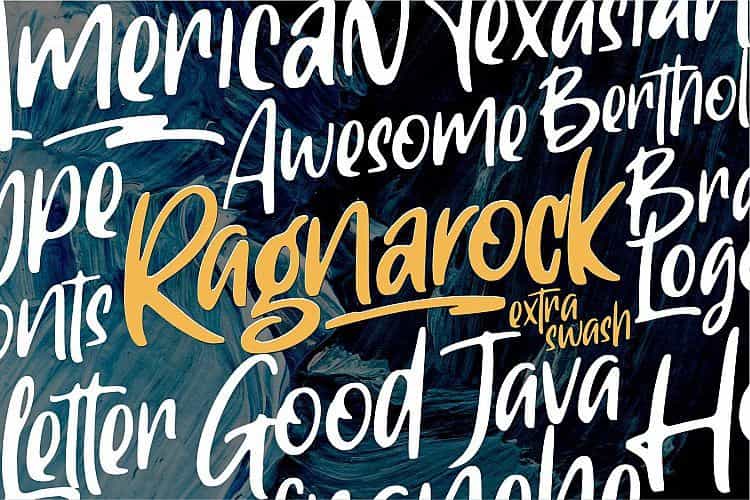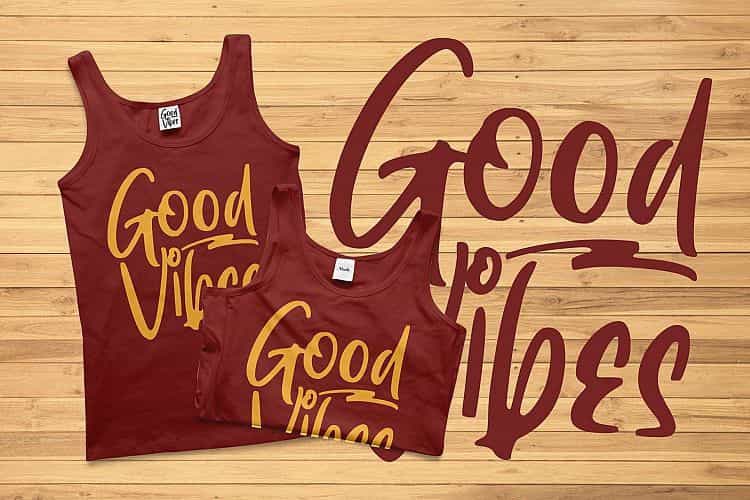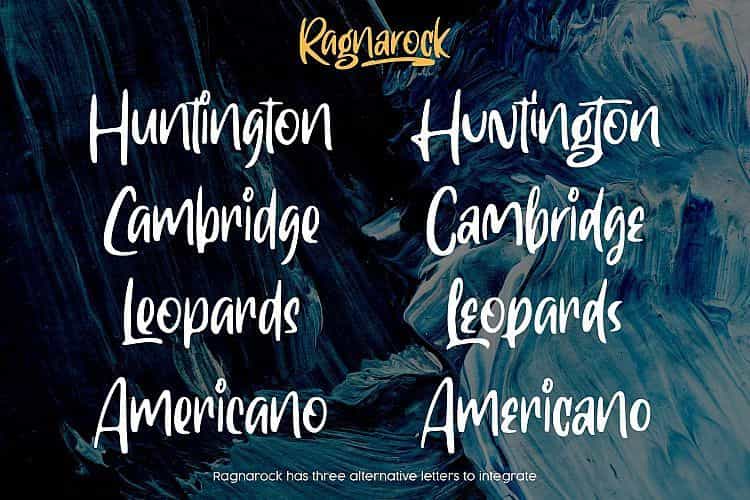
Introducing Ragnarock Font. It is created and shared by Good Java Studio. RAGNAROCK!the bold and fun style fonts gave birth to it. Many different swashes and alternate letters are available for you to do the great work ever. That is available on other files from letter A-Z and a-z.